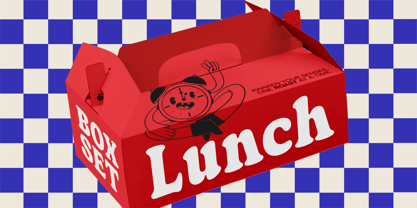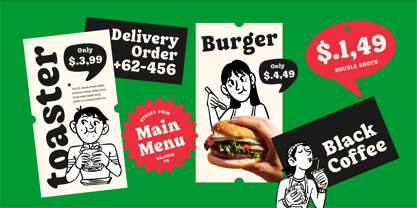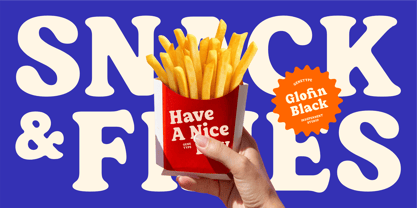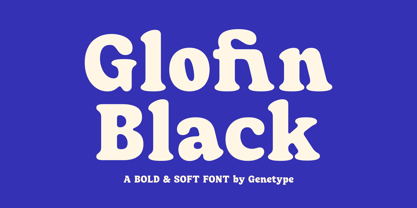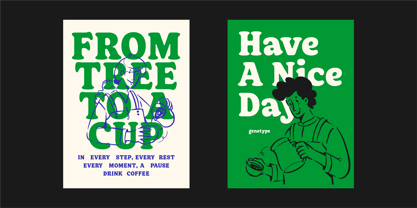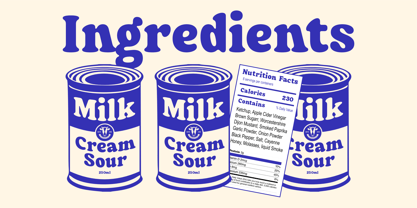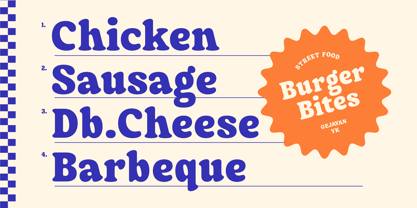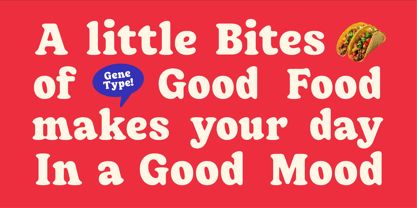
Glofin
by Genetype
The Glofin Font Family was designed by Bagus Arya Kirana and published by Genetype. Glofin contains 1 styles. More about this family
Introducing Glofin Black, inspired by Cooper Black but with a twist, Glofin Black brings chunky vibes with a fresh, modern feel. It's bold, friendly, and full of personality—perfect for logos, posters, or anything that needs to stand out in style.
Retro? Yes. Boring? Never!